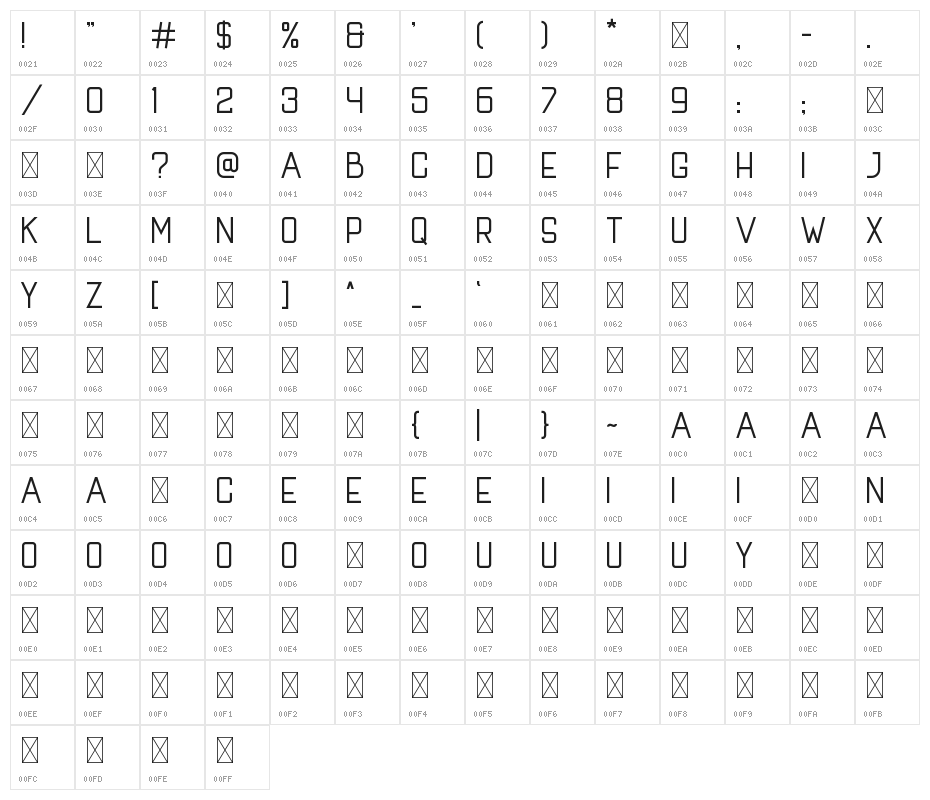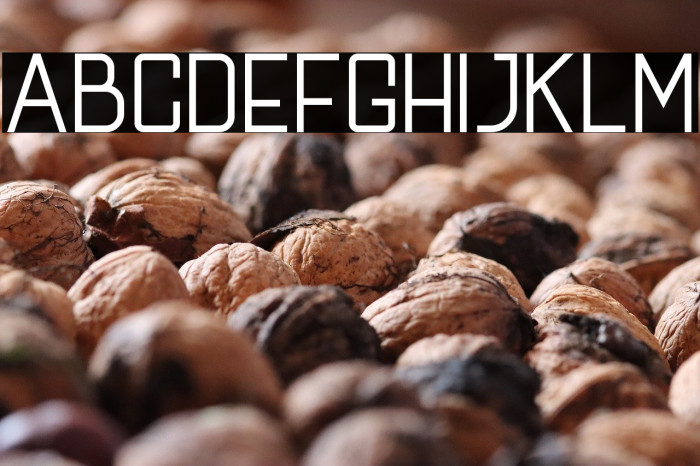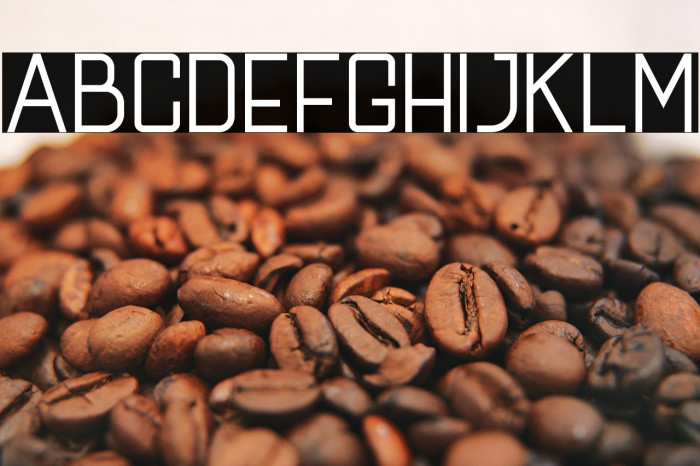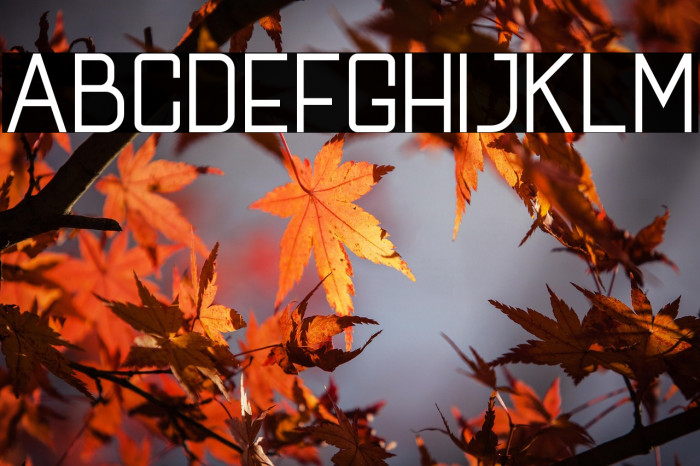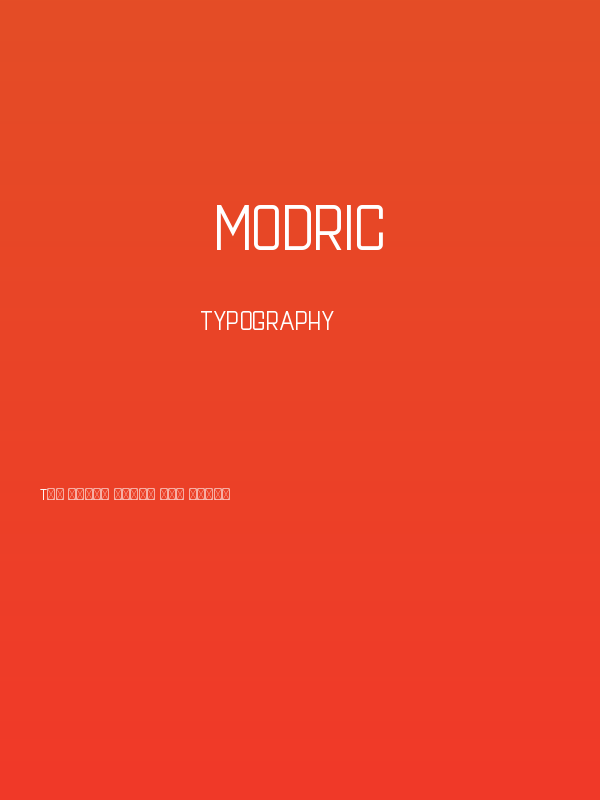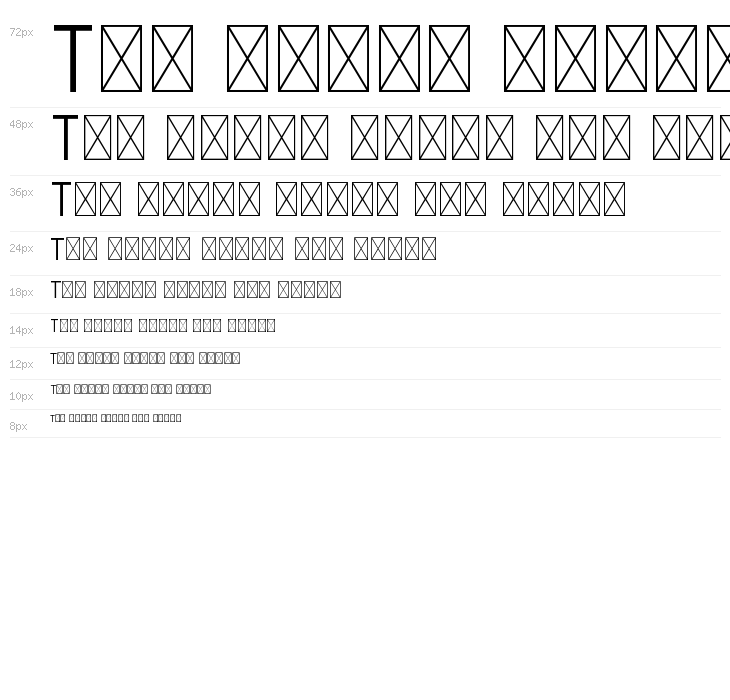
MODRIC Font
MODRIC Description
This font features a modern and geometric design with clean, straight lines and sharp angles. The uppercase letters are uniform in height, creating a cohesive and structured appearance. The numerals are similarly styled, maintaining the geometric theme with consistent line thickness. Special characters are included, matching the overall aesthetic with a contemporary flair. The font's simplicity and clarity make it highly legible, suitable for various design applications where a modern and sleek look is desired.
| Use Case | Headlines, Logos, Digital Interfaces |
| Proposed Projects | Ideal for branding, signage, digital interfaces, and editorial design where a contemporary and professional look is required. |